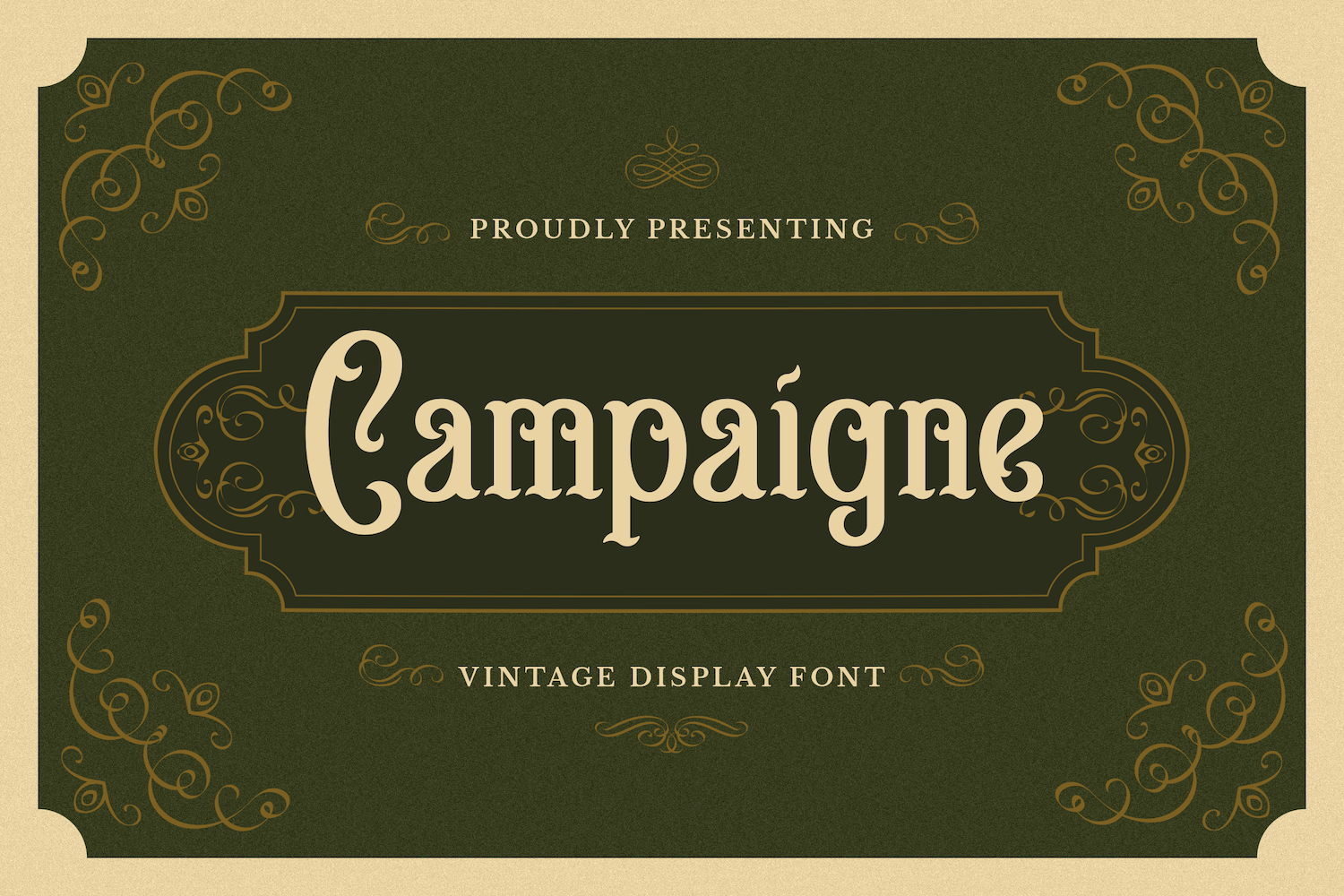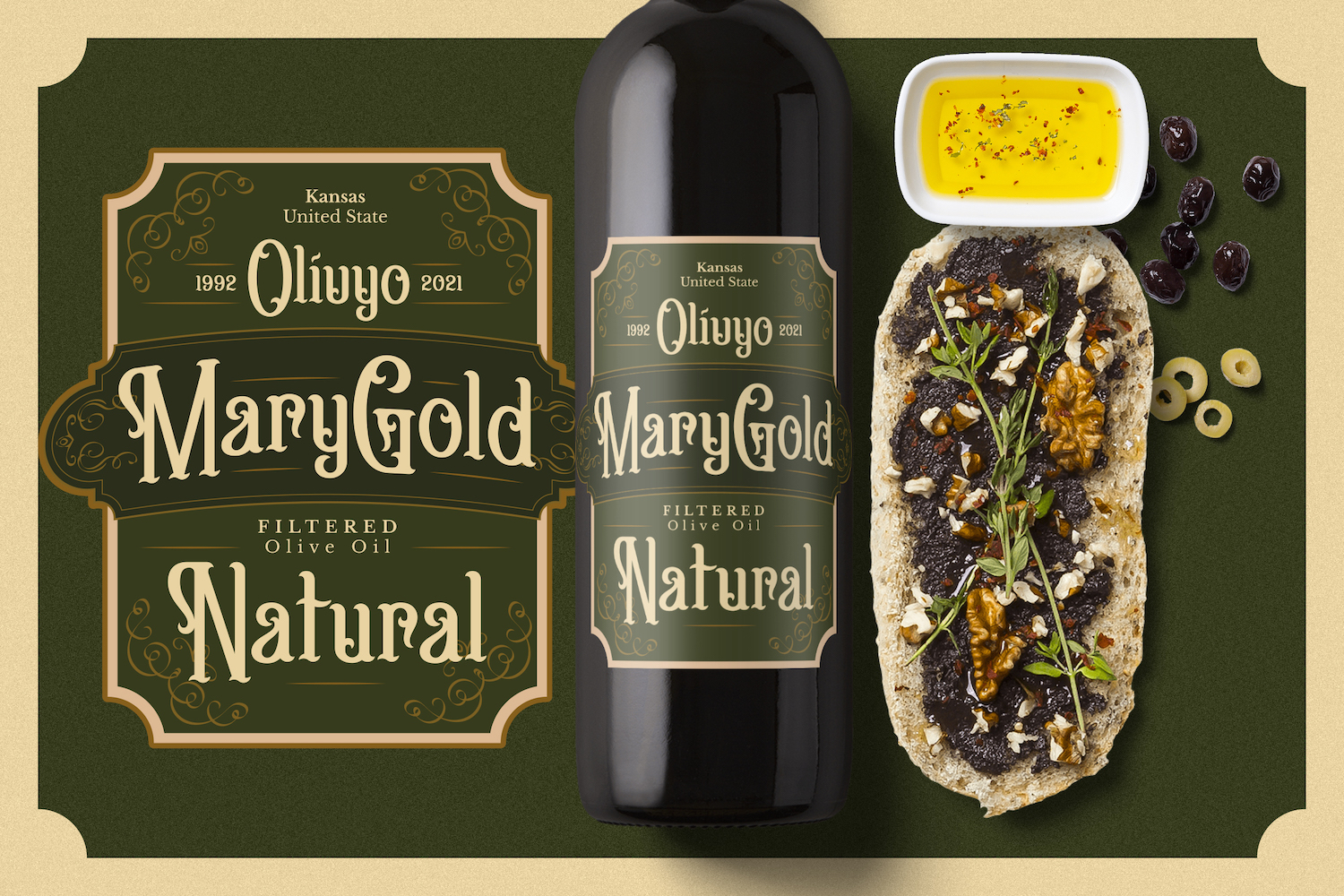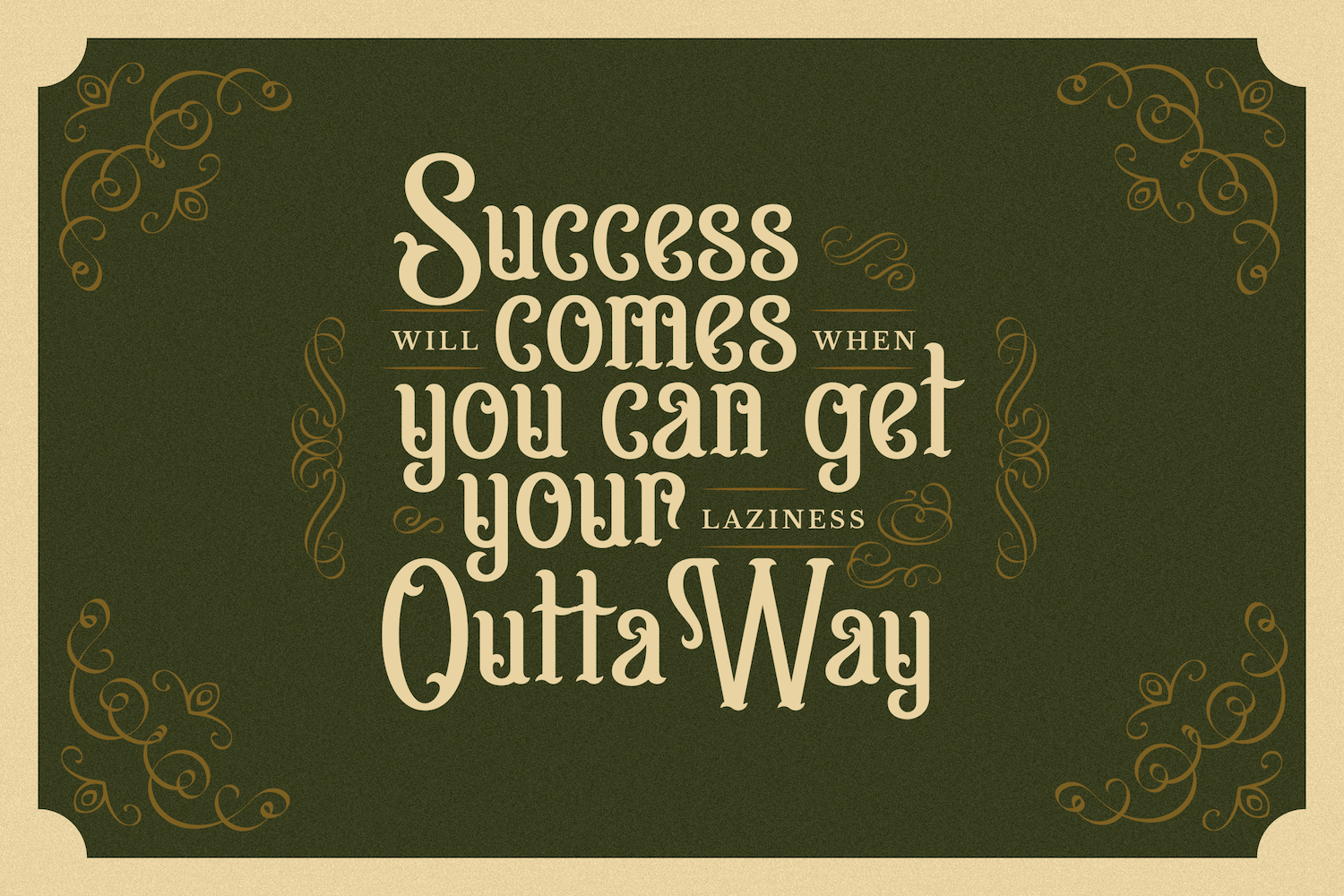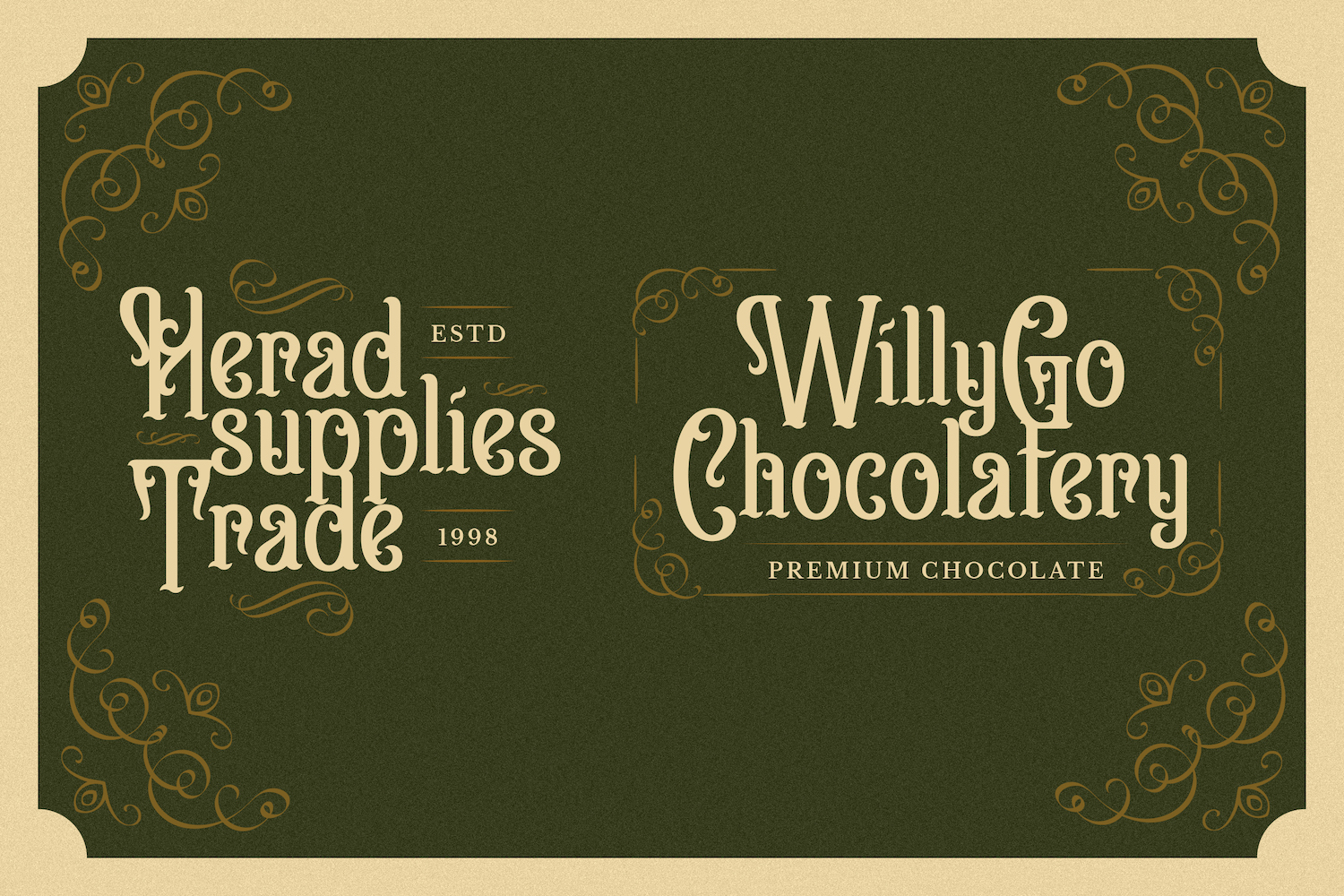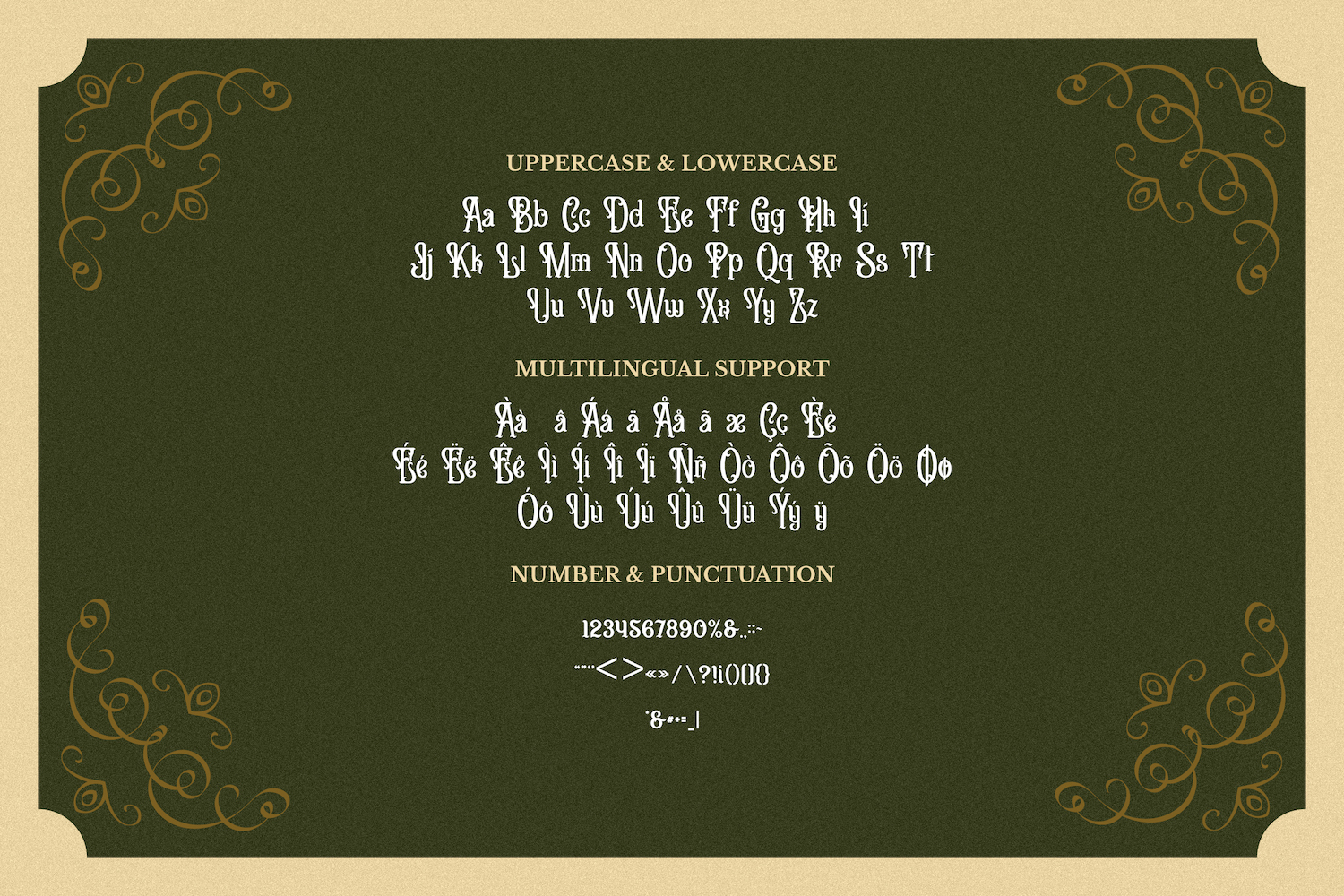
Campaigne is a vintage display font inspired by ornamental typography from the 19th century. With its high-contrast strokes and distinctive terminals, this font evokes a timeless elegance that fits perfectly into classical packaging, boutique branding, or heritage product labeling. Its decorative curves and unique serifs make every letter feel hand-crafted and memorable.
Designed with readability and style in mind, Campaigne combines traditional flair with artistic charm, making it ideal for premium labels, chocolate packaging, wedding invitations, and nostalgic merchandise. This serif font supports multilingual characters and comes equipped with uppercase, lowercase, numerals, and a wide range of punctuation.